Punctuation series: The ‘at’ symbol
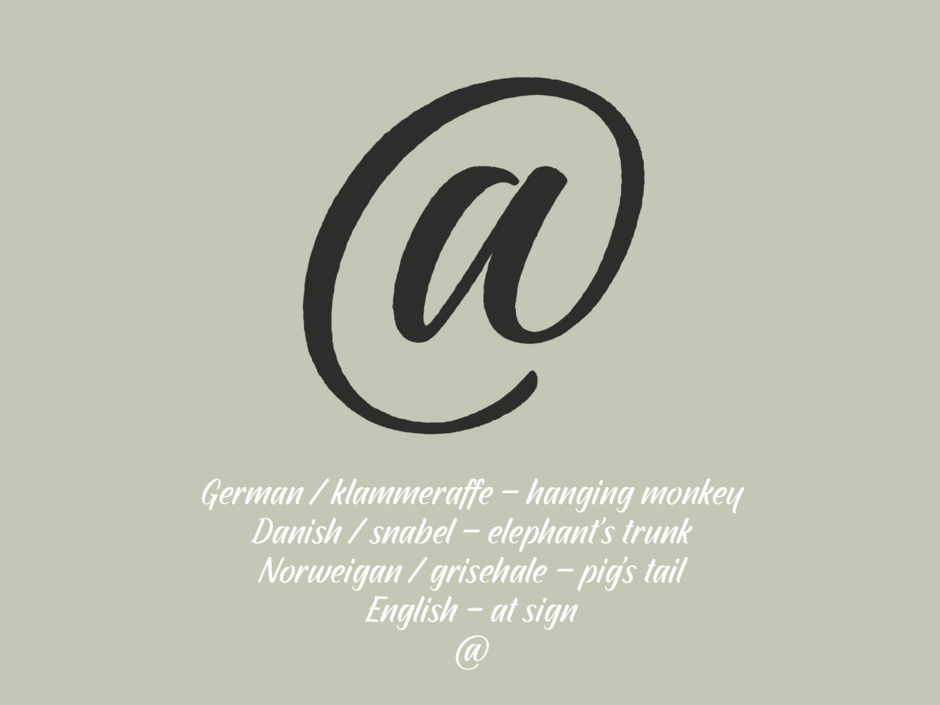
Although not technically speaking a punctuation mark but a symbol, logogram or a ligature, the @ symbol is written as an ‘a’ inside a circular swoosh which is the mark that we make when jotting down someone’s email – a quick twiddle of the pen from your best shorthand does the trick. Affectionately known as the ‘elephant’s trunk’ in Danish, ‘little duck’ in Greek, ‘hanging monkey’ in German and ‘pig’s tail’ in Norwegian, most people refer to it as the at or less commonly the commercial sign. It is part and parcel of today’s everyday life – often associated with emails, the at @ symbol has had a distinguished life so far.
The origin of the @ symbol remains a mystery as there are various scholars that claim to know the specifics of its first sighting. Some claims date back to the mid 1300s with the @ symbol appearing in religious manuscripts by medieval Bulgarian Monks translating Greek texts for the word Amin or Amen at the end of a verse.
Another theory is that the medieval monks saved time, space, expensive ink and paper by abbreviating the Latin word for ad meaning ‘at the rate of’. For example if you purchased 6 hood robes at the rate of 2 farthings each, to save space the monks would write 6 hood robes @ 2 farthings each, allowing the monk more precious prayer time. At a time when scribes would often decorate texts with looping flourishes with their reed pens or quills the lowercase ‘d’ would resemble a reversed ‘6’ so it’s not hard to imagine that the @ sign was formulated under the scribes handwritten letterforms creating a ligature of ad.
But it was in 1971 when an American computer programmer called Ray Tomlinson gave the @ sign its most prominent and familiar usage. Tomlinson was contracted by the US government’s Advanced Research Projects Agency who had been given the mammoth task of connecting computers all over America. Embarking on connecting people to computer terminals was no mean feat – trying to determine a way of linking the user and company to a host without being ambiguous for computer systems to decipher he opted for the @ sign. The aptly named ARPANET system became the precursor of the internet as we know it today and Tomlinson is known as the inventor of the first email system.
Amen!
Image set in handwritten typeface FS Shepton®.